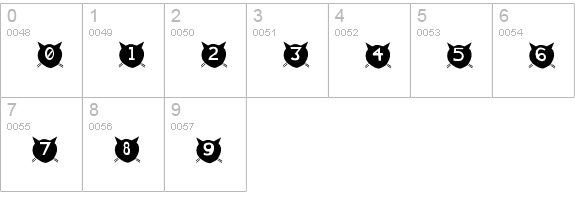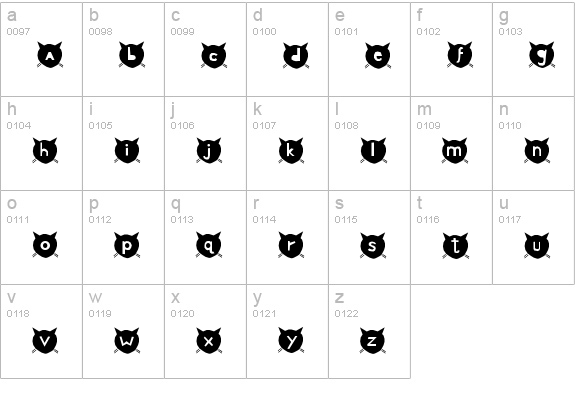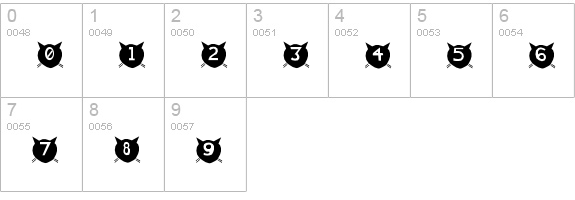
cats MEOW Font Details
Introducing the purr-fect font for all cat lovers and typography enthusiasts - Cats MEOW font! This delightful font captures the essence of feline charm and playfulness, with each letter designed to resemble a cute cat silhouette. Whether you're working on a pet-related project, creating fun social media graphics, or simply want to add a touch of whimsy to your designs, Cats MEOW font is sure to delight and inspire. Best of all, Cats MEOW font is completely free to download at FontsMarket.com. Simply visit the website to get your paws on this charming font and start incorporating its unique style into your creative projects today. Let the playful spirit of Cats MEOW font bring a touch of feline magic to your designs and captivate your audience with its adorable charm. Download now and let your creativity run wild with this freely available font!